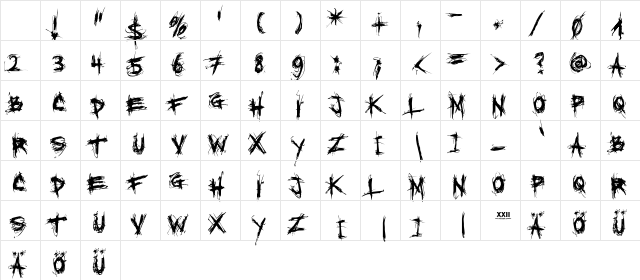
Complete XXII SCRATCH Regular glyph index. Displaying only characters natively supported by XXII SCRATCH Regular font.
XXII SCRATCH is a composed and adaptable typeface that performs quietly and consistently across a wide range of design contexts.